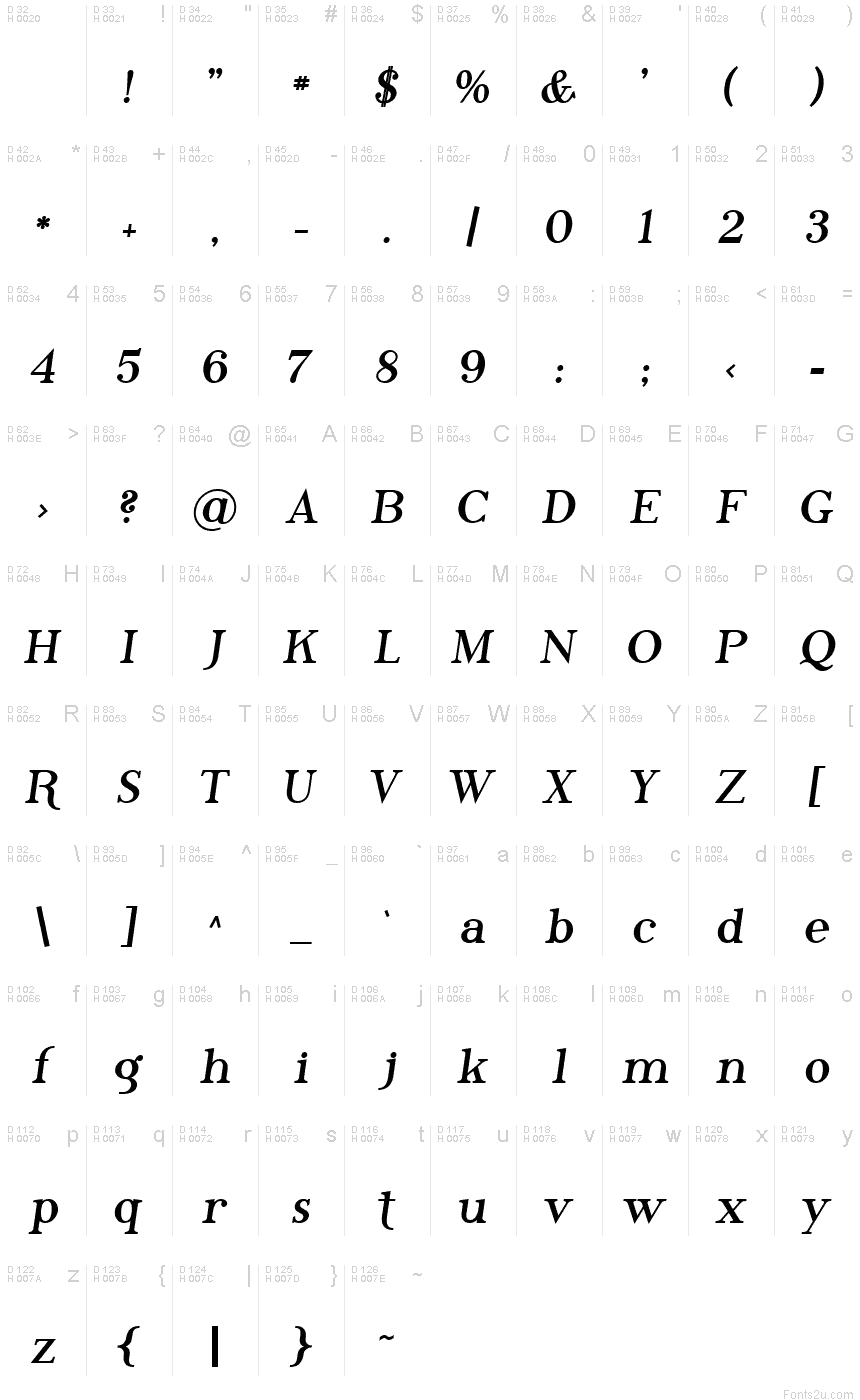
SF Phosphorus Bromide by Derek Vogelpohl of ShyFoundry is a free high-contrast italic serif with sweeping curves and a sharply slanted stance. Hairline details cut through the broad strokes with crisp precision.
It can create a refined, theatrical title for fashion editorials, formal invitations, and arts event posters. On fragrance packaging or boutique branding, its dramatic stroke contrast can become the central mark of a product identity rather than ordinary supporting text.
SF Phosphorus Bromide